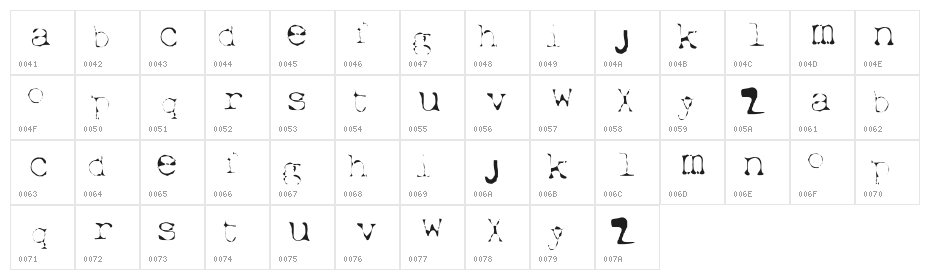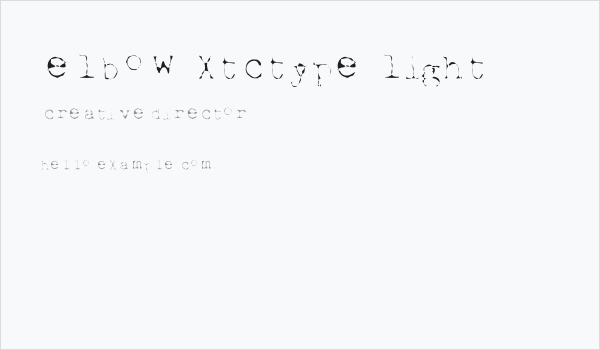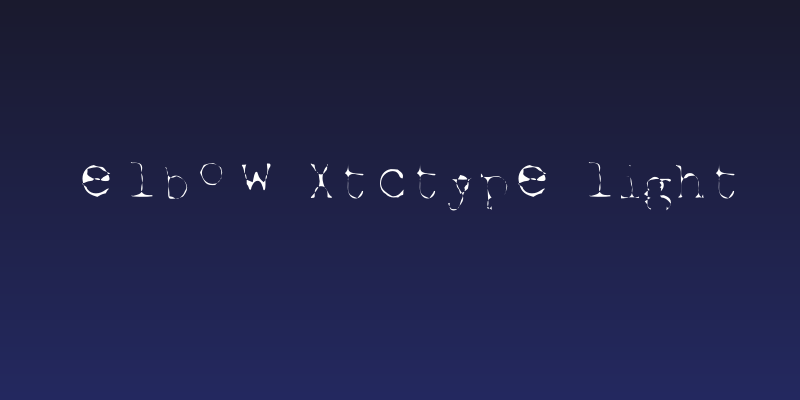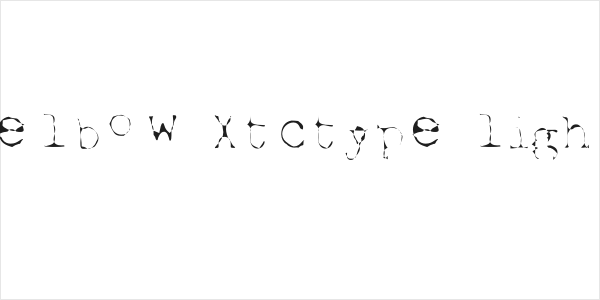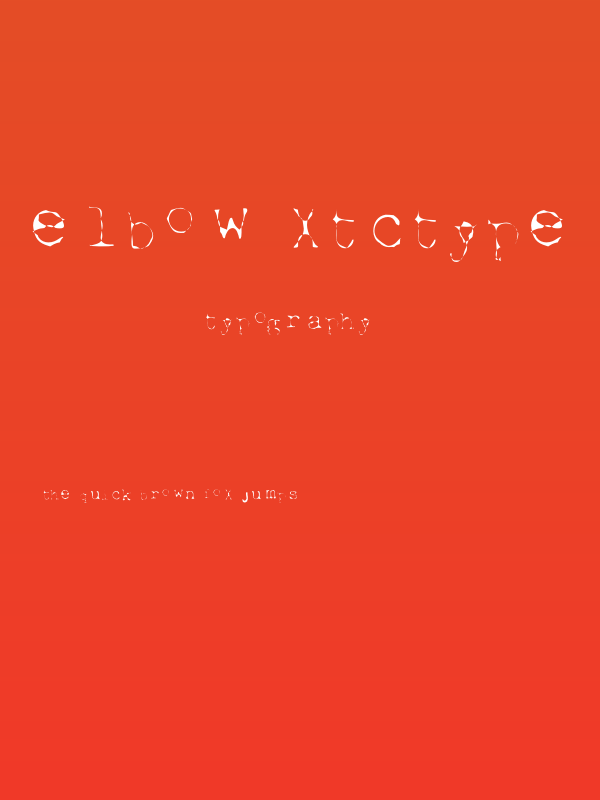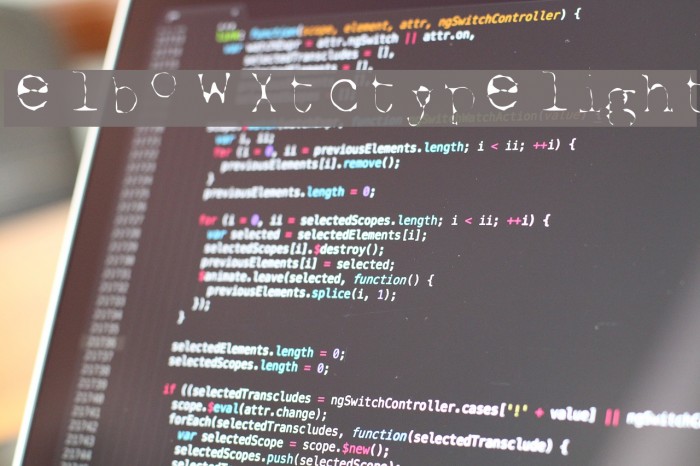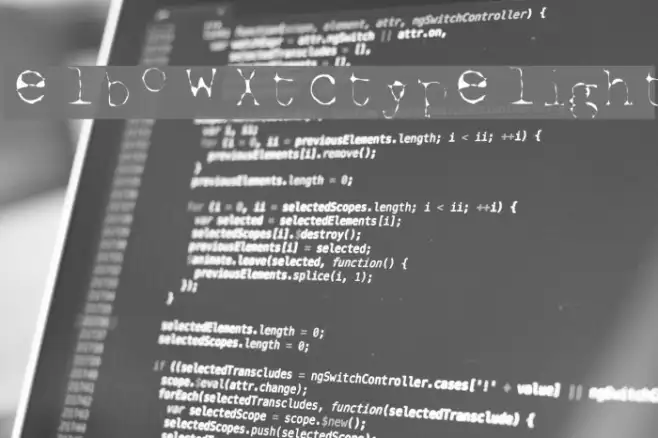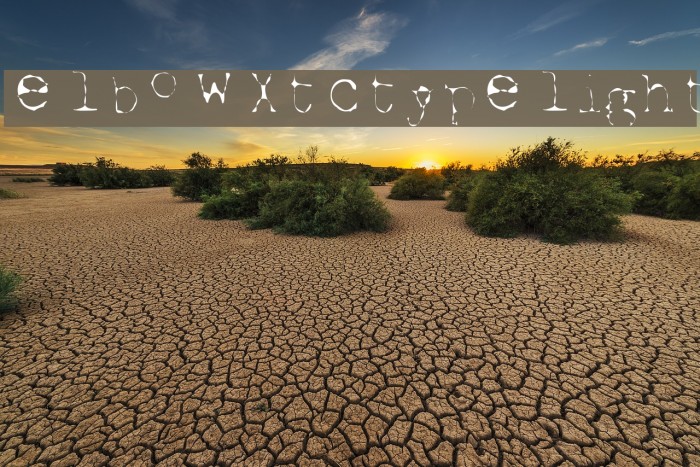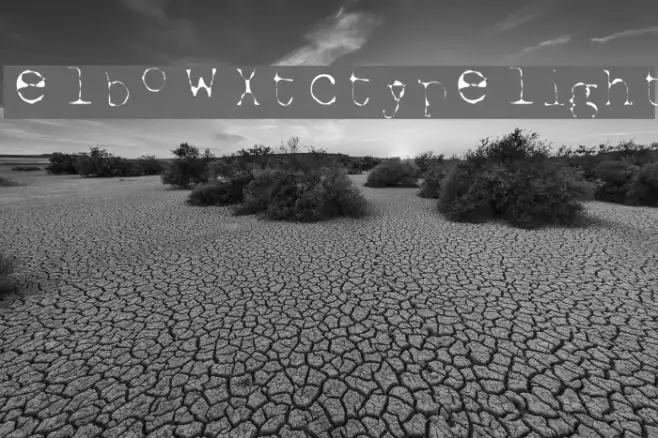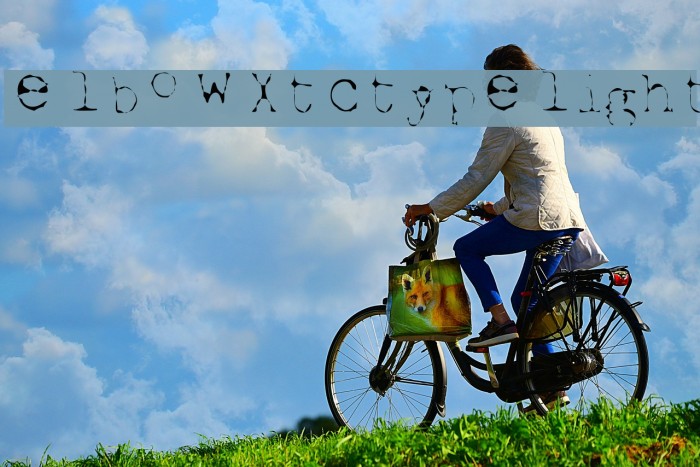
Elbow-xtctype-Light Font
Elbow-xtctype-Light Description
This font features a distressed and grunge aesthetic, characterized by irregular edges and a worn-out appearance. The letters exhibit a unique texture that gives the impression of being weathered or eroded over time. This style is particularly evident in the inconsistent stroke thickness and the rough, uneven outlines of each character. The font maintains a sense of individuality with each letter, creating a dynamic and eye-catching visual effect. The overall design suggests a hand-crafted or artistic approach, making it suitable for projects that aim to convey a sense of authenticity or ruggedness.
| Overall Style | Grunge, Artistic |
| Proposed Projects | Ideal for album covers, posters, branding for alternative or indie products, and any design requiring a rugged, authentic feel. |